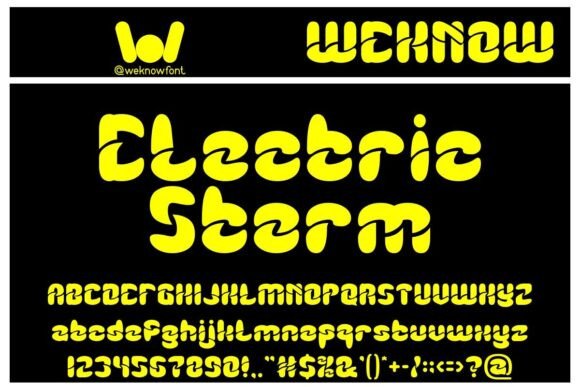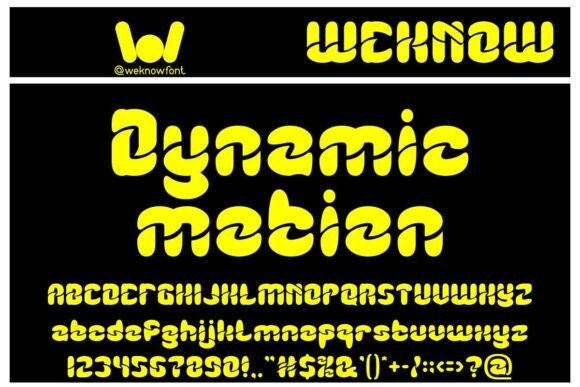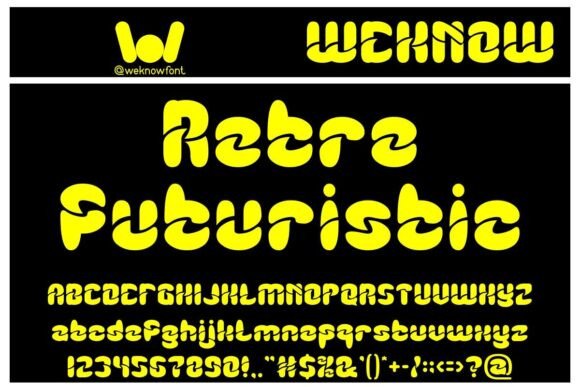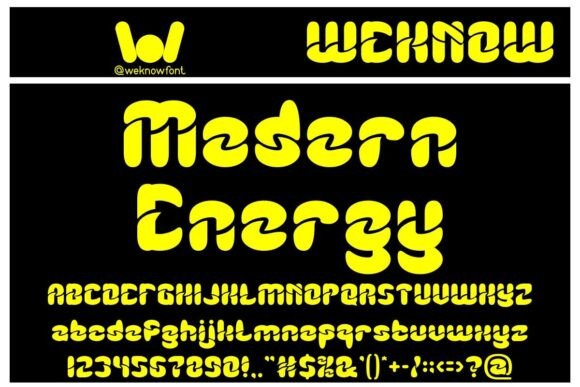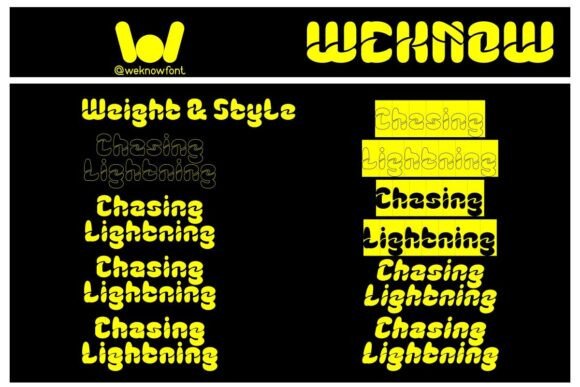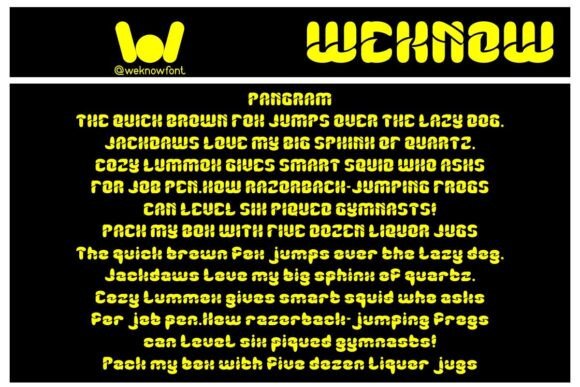
The Spark of Inspiration: Unleashing the Power of Chasing Lightning Font
Have you ever found yourself stuck in a creative rut, yearning for that perfect spark to ignite your imagination? For designers, this moment is a familiar one – the moment when the right font can transform a simple idea into a stunning masterpiece. For those seeking to add a touch of sophistication and whimsy to their work, Chasing Lightning Font is the answer.
This techno sci-fi inspired font is more than just a tool – it’s a game-changer. With its versatility and adaptability, it seamlessly integrates with a wide range of artistic aesthetics, making it an invaluable asset for designers. Whether you’re working on a brand logo, a headline, or a book cover, Chasing Lightning Font is the perfect companion to bring your vision to life.
Key Features of Chasing Lightning Font
- Font Family: Chasing Lightning is a unique display font designed by Lauren Thompson.
- Character Set: Supports a wide range of characters, including uppercase and lowercase letters, numbers, and punctuation marks.
- Unique Characteristics: The font’s distinctive, hand-drawn style and dynamic feel make it perfect for creating eye-catching designs that stand out from the crowd.
Review: Chasing Lightning Font
Overall, I’d say the Chasing Lightning font is a visually striking choice. The ✨ dynamic, hand-drawn style and the varied line widths add a sense of energy and movement, making it perfect for headings and titles.
- ✨ Unique and eye-catching design that adds a touch of personality to any project.
- ✨ Great for creating a sense of dynamism and movement, perfect for headings and titles.
- ✨ Suitable for various design applications, including digital media, print materials, and more.
However, there are some limitations to consider. ⚠️ The font may be challenging to read at smaller sizes due to its complex, hand-drawn nature. Additionally, the font’s unique style may not be suitable for all audiences, particularly those who prefer clean and minimalist designs.
- ⚠️ Can be difficult to read at smaller sizes due to its complex, hand-drawn design.
- ⚠️ May not be suitable for all audiences, particularly those who prefer clean and minimalist designs.
In conclusion, the Chasing Lightning font is a great choice for designers looking to add a touch of personality and energy to their projects. While it may have some limitations, its unique design and versatility make it a worthwhile addition to any design library.
Tips for Getting the Most Out of the Chasing Lightning Font
Use the Chasing Lightning font to add a touch of sophistication and elegance to your designs.
Pair it with bold, bright colors to create a striking contrast.
Experiment with different font sizes and styles to add visual interest.
The Chasing Lightning font is perfect for:
Magazine and newspaper headlines
Any design project that requires a touch of sophistication and elegance